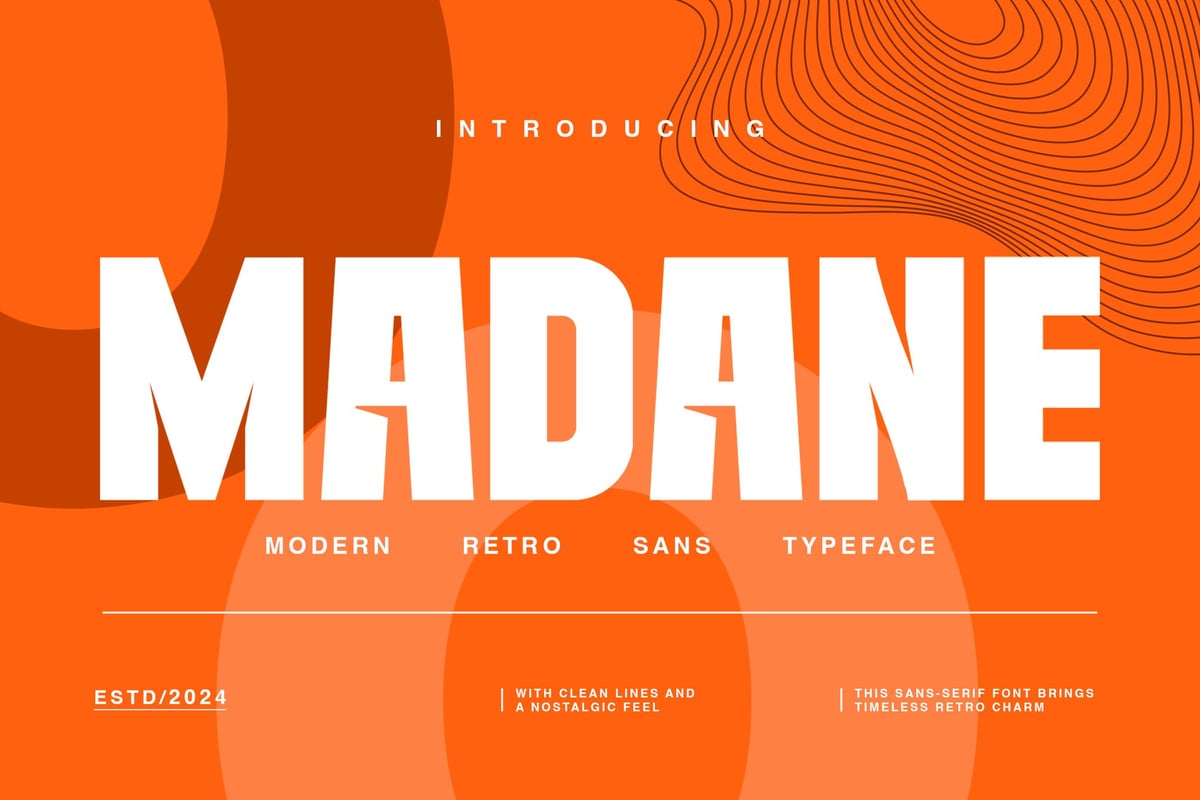
Madane – Sans Serif Typeface
Madane is a bold, geometric sans serif typeface built for clean, high-impact design across any medium.
With its minimalistic construction and confident character, Madane strikes the perfect balance between modern precision and nostalgic retro charm. Its versatility makes it a go-to choice for designers working across a wide range of creative disciplines.
Ideal use cases include:
- Branding and identity design
- Editorial layouts and publications
- Logo design
- Posters and print materials
- User interfaces and web design
Madane includes uppercase and lowercase letters, punctuation, and numerals — everything you need to set compelling type right out of the box.